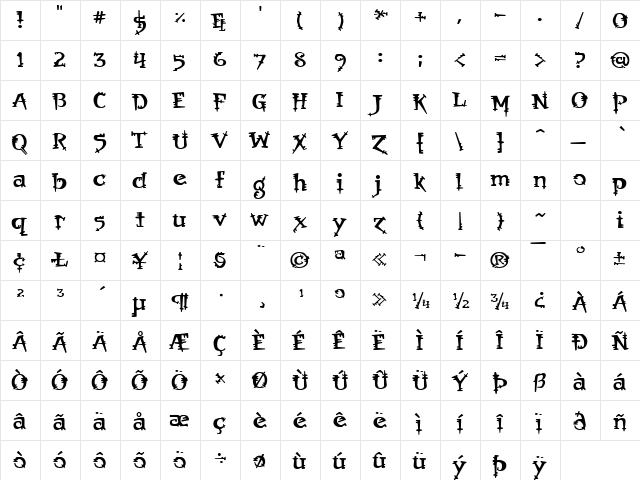
Orbus Multiserif Regular
| Foundry | Monotype Typography |
| Designer | Chank Diesel |
Design Context for Orbus Multiserif Typeface
Orbus Multiserif brings classic typographic sensibility to the table — its serifs and measured letterforms reflect centuries of print heritage.